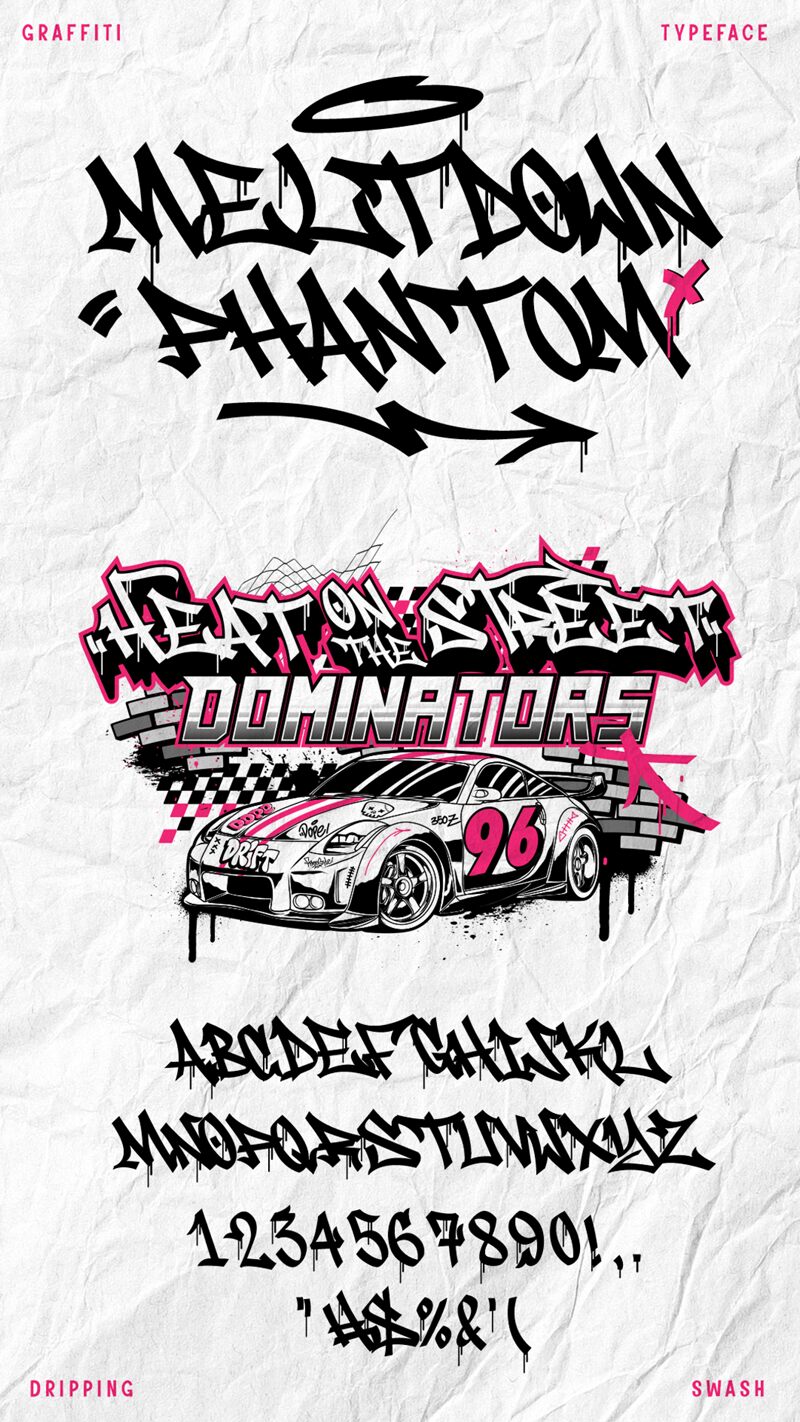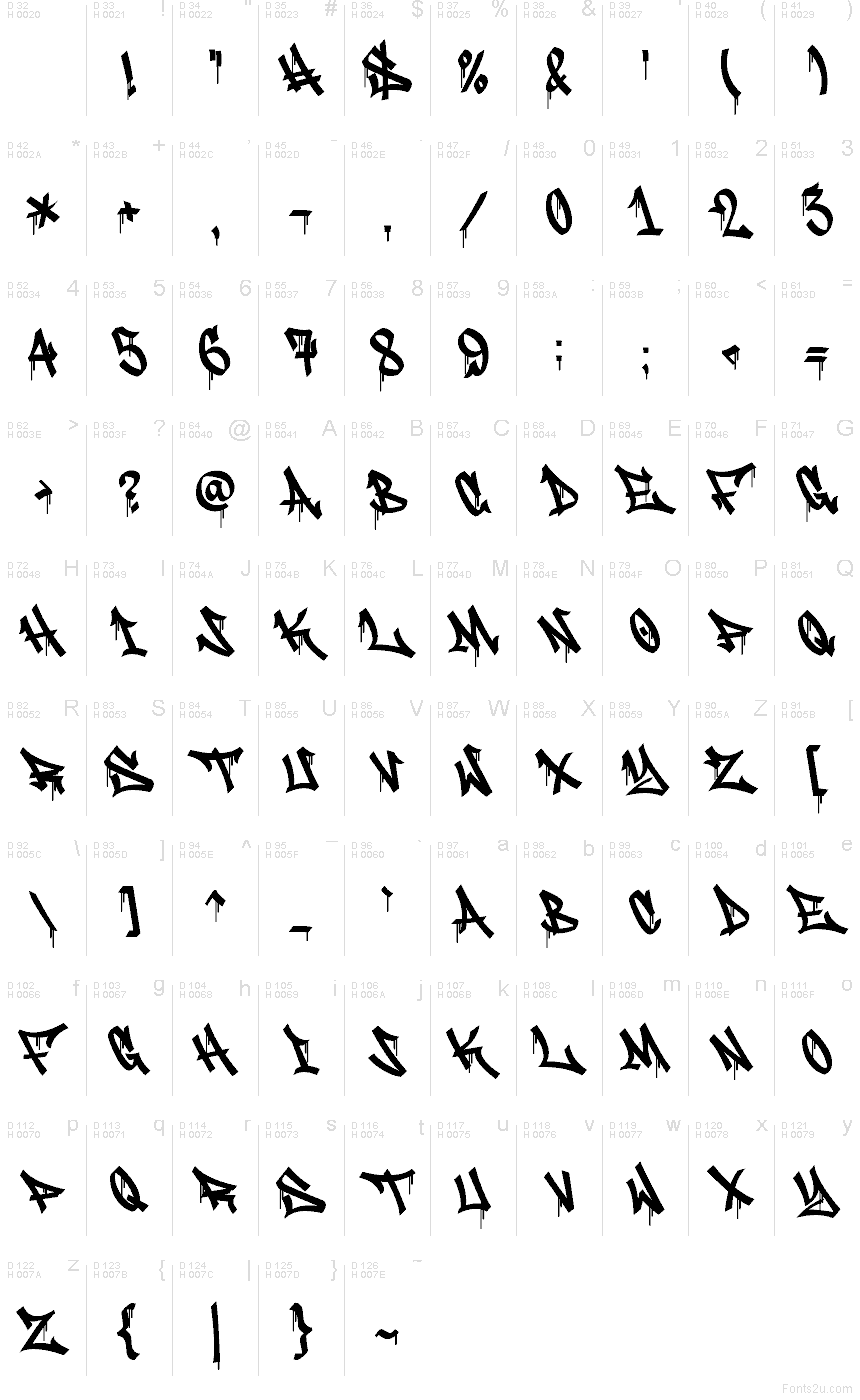
Meltdown Phantom Drip font by Muhammad Panji Ramdhani of Cikareotype is a free graffiti font that feels like tag lettering caught mid-attack-spiky, jagged, and slightly “possessed.” The strokes slash forward with nervous energy, then melt into drippy points that read like fresh ink sliding down a wall. It’s loud, gritty, and made to hit fast.
Using Meltdown Phantom Drip, you’ll get instant attitude on streetwear logos, mixtape covers, skate posters, gaming thumbnails, underground event flyers, sticker packs, and social headers. This free font works best at larger sizes so the sharp rhythm stays readable; pair it with a clean, neutral sans for captions to keep the chaos controlled.